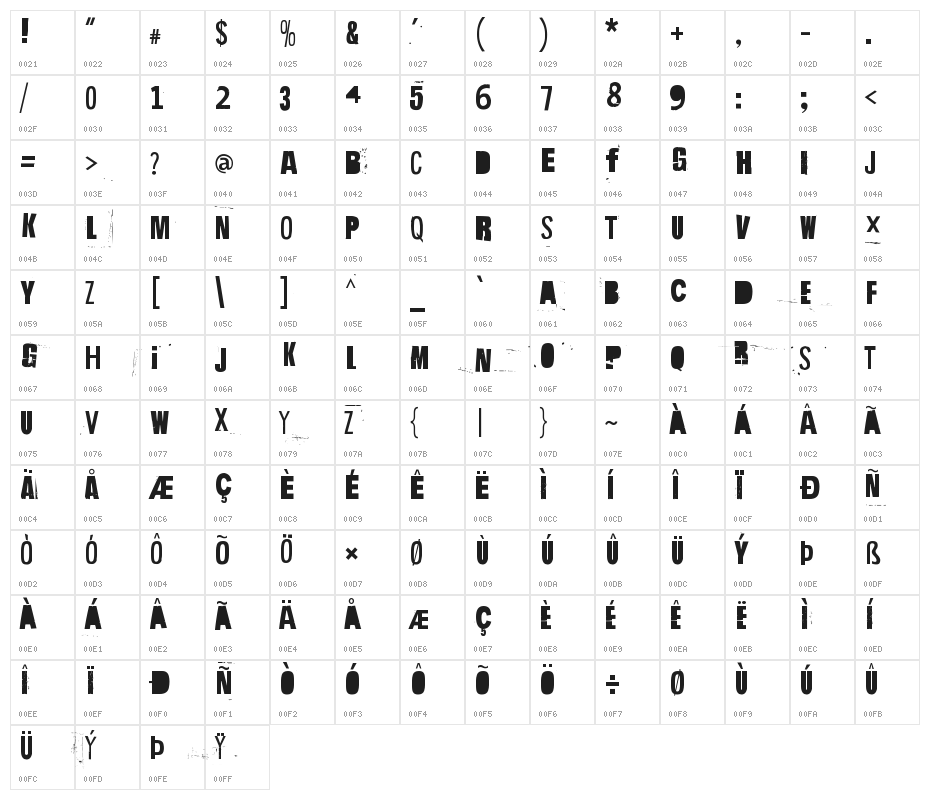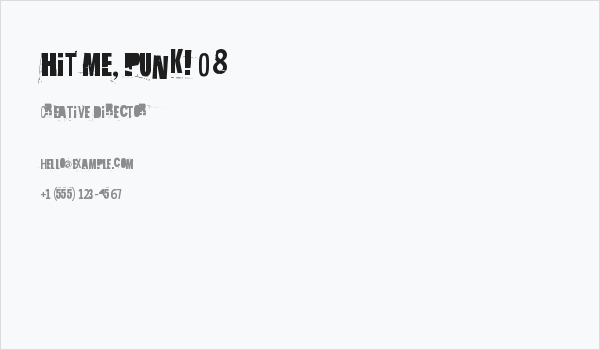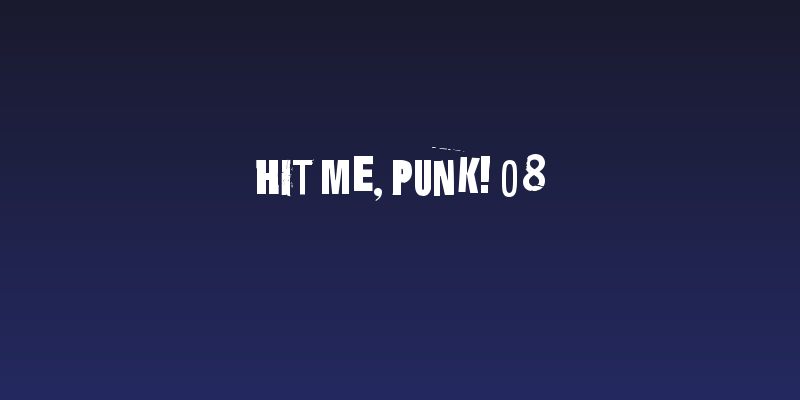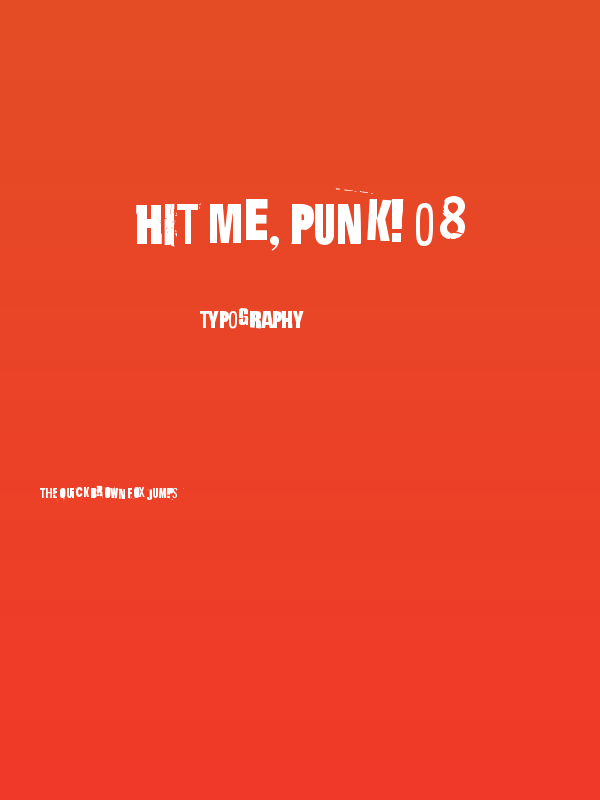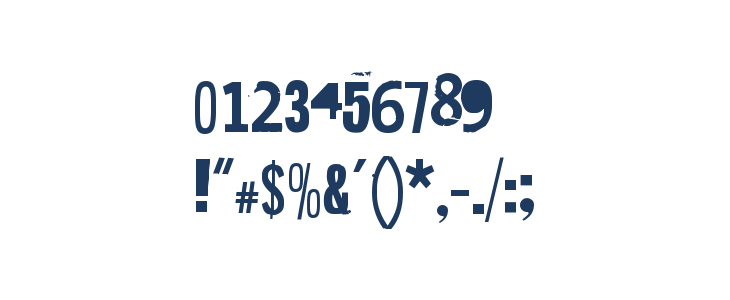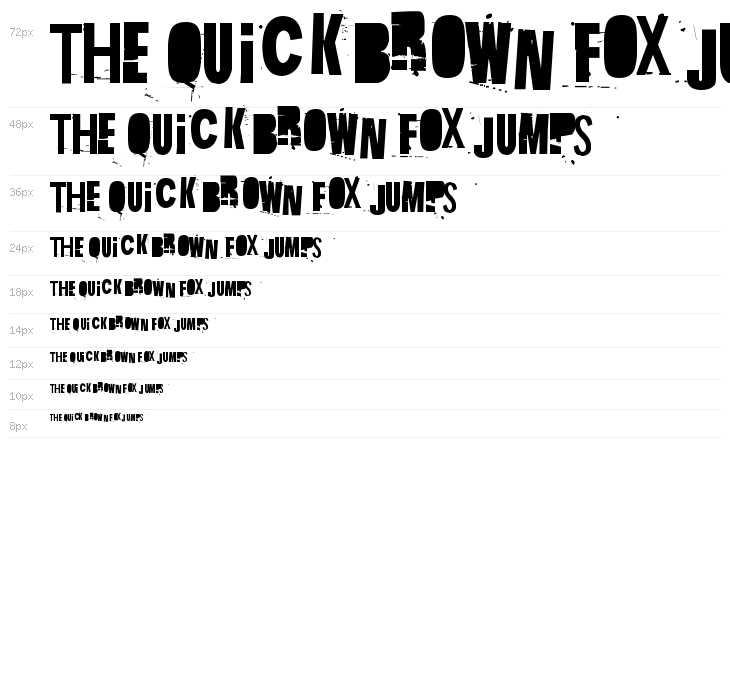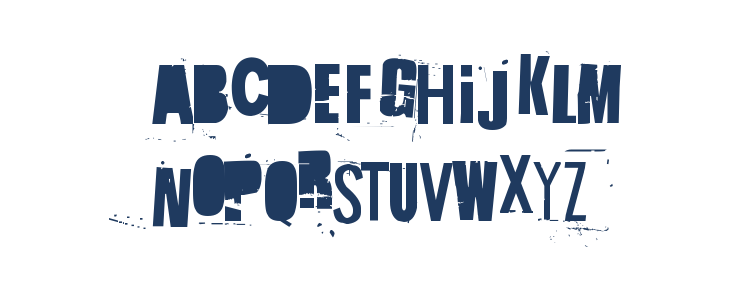
Hit me, punk! 08 Font
Hit me, punk! 08 Description
This font features a bold and distressed style, reminiscent of punk rock aesthetics. The characters are heavily textured, with a rough, grunge-like appearance that suggests a rebellious and edgy vibe. The uppercase and lowercase letters are distinct, with some letters appearing slightly irregular, adding to the chaotic and dynamic feel. The numbers and special characters maintain this distressed look, ensuring consistency throughout the font. This font is ideal for projects that require a bold statement or a gritty, urban feel.
| Overall Style | Punk, Grunge, Edgy |
| Proposed Projects | Album covers, concert posters, streetwear branding, rebellious-themed designs. |